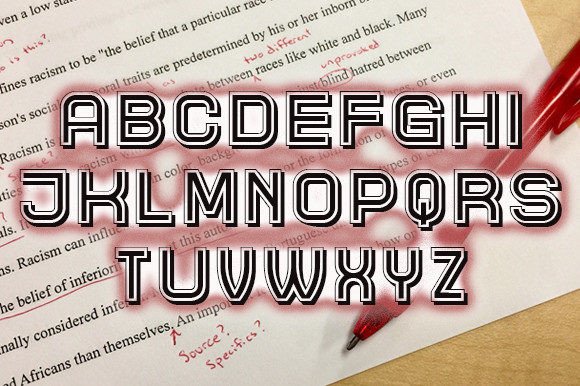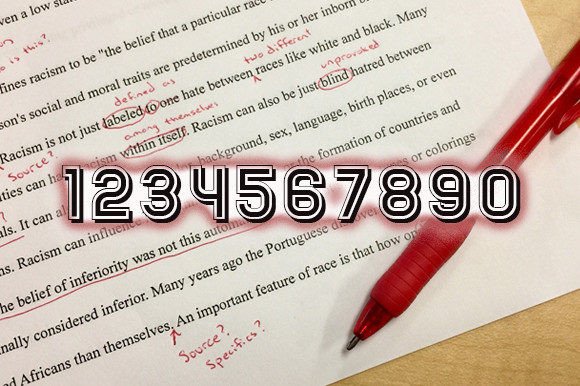
Introduction to Highlight Font
You’ve spent hours brainstorming the perfect concept for your next creative project, pouring your heart and soul into every detail. But what’s the one element that can take your design from meh to mesmerizing? A standout font, of course! And that’s where the Highlight Font comes in – a sleek, 3D font that’s sure to elevate your social media graphics, posters, flyers, and even merchandise.
Whether you’re a seasoned designer or just starting out, the Highlight Font is a valuable resource that can help you create high-quality designs that grab attention. With its elegant, eye-catching style, this font is perfect for anyone looking to add a touch of sophistication to their projects. Plus, it’s available for free download, making it an excellent addition to any designer’s toolkit.
As a design resource, the Highlight Font offers unparalleled flexibility – use it on a transparent background or pair it with a bold image for maximum impact. Whatever your creative vision, this versatile font is sure to shine and leave a lasting impression on your audience.
Key Features of Highlight Font
- Unique and stylish design with a transparent background, perfect for creative projects.
- High-quality font with a range of weights and styles, available for free download.
- Designed as a versatile design resource, ideal for use in digital and print projects.
Honest Review: Highlight Font
As a designer, I’m always on the lookout for new and exciting design resources to elevate my creative projects. Recently, I stumbled upon the Highlight Font, and I’m excited to share my thoughts on it.
- High-quality font with a modern and sleek design
- Easy to read and versatile for various design applications
- Transparent background, making it perfect for overlaying on images or videos
One of the standout features of the Highlight Font is its high-quality design. The font is well-crafted, making it easy to read and versatile for various design applications. I’ve used it for headings, titles, and even as a highlighter for text, and it looks great every time.
- Not as extensive a character set as some other fonts, which may be a limitation for certain projects
Overall, I’m impressed with the Highlight Font. It’s a great addition to any designer’s toolkit, and I’d definitely recommend it for personal or small-scale projects. However, for commercial use, you may want to consider other options.
Tips for Getting the Most Out of Highlight Font
Experiment with different font sizes and styles to create visual interest. Use the Highlight Font in combination with other design elements, such as bold text or colorful backgrounds, to make your creative project stand out.
Highlight Font is commonly used in presentations, reports, and infographics to draw attention to important information. It can also be used in creative projects, such as posters, flyers, and brochures, to add a touch of elegance and sophistication.